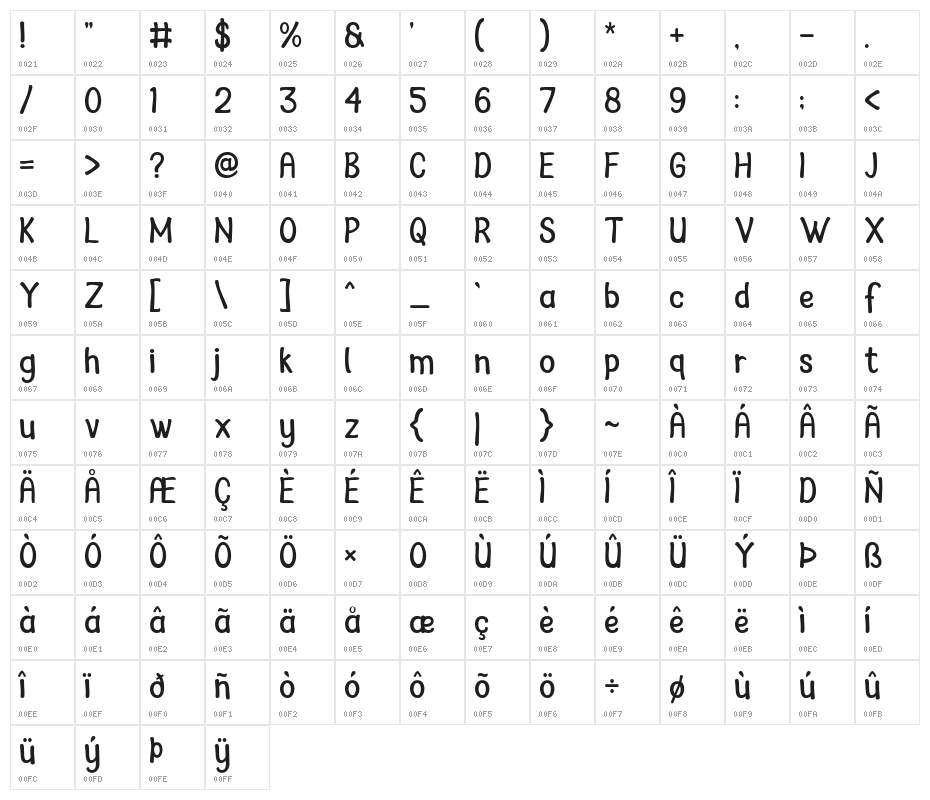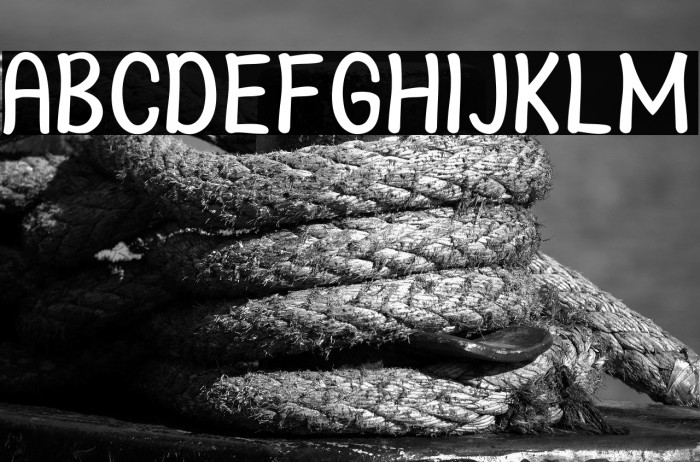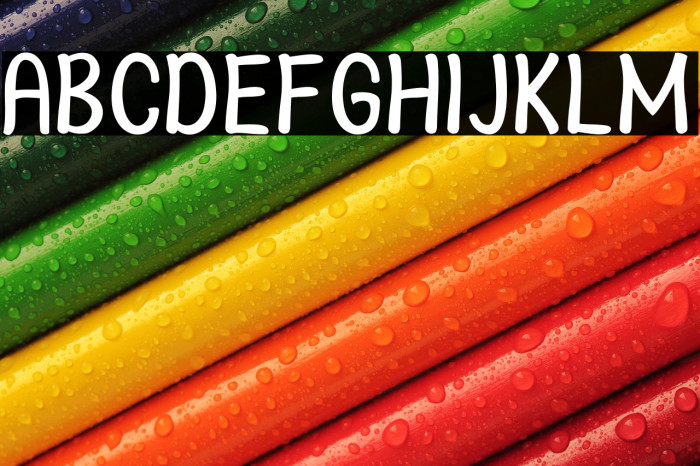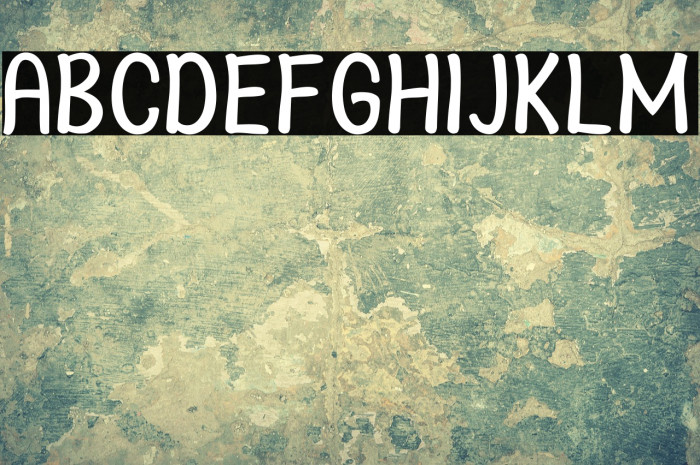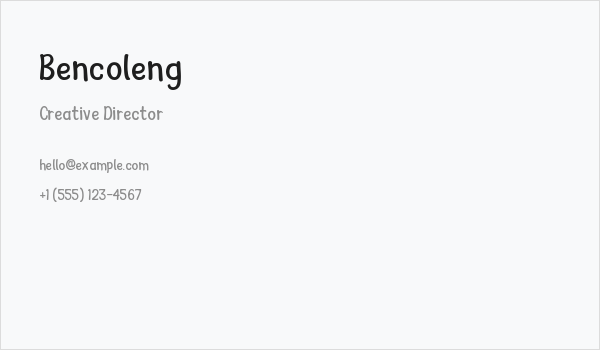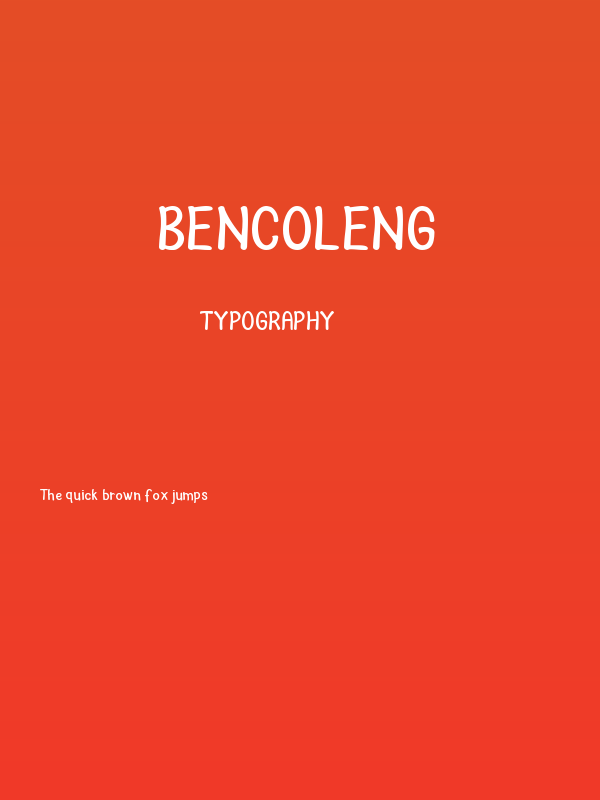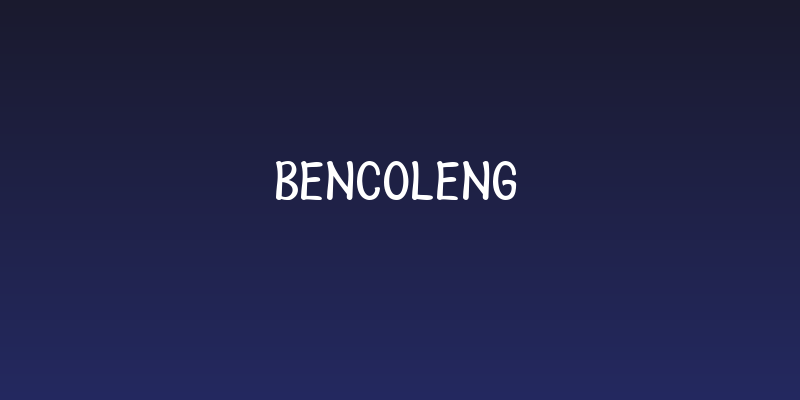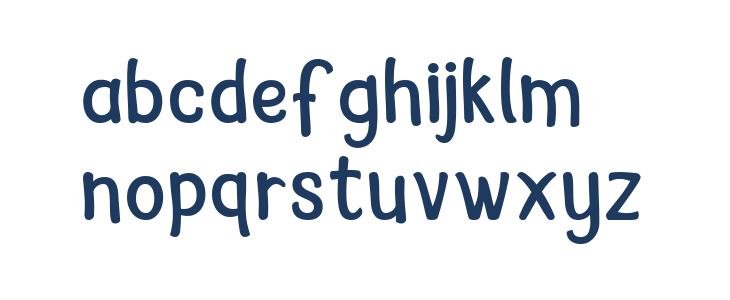
Bencoleng Font
Bencoleng Description
This playful and whimsical font features rounded, hand-drawn characters that convey a friendly and approachable vibe. The uppercase and lowercase letters are consistent in style, with a slight variation in stroke width that adds a touch of dynamism. Numbers and special characters maintain the same playful aesthetic, making the font versatile for various creative applications. The overall design is casual and informal, perfect for projects that require a personal touch.
| Proposed Projects | Ideal for children's books, greeting cards, playful branding, and informal invitations. |